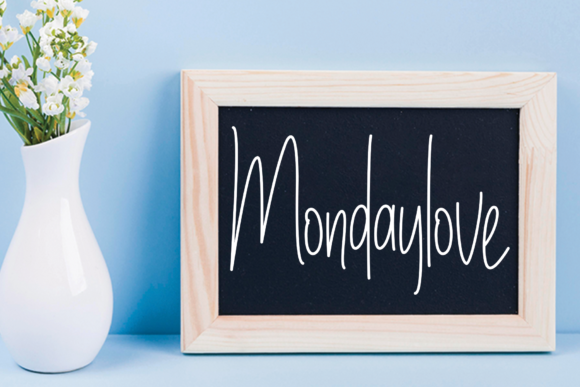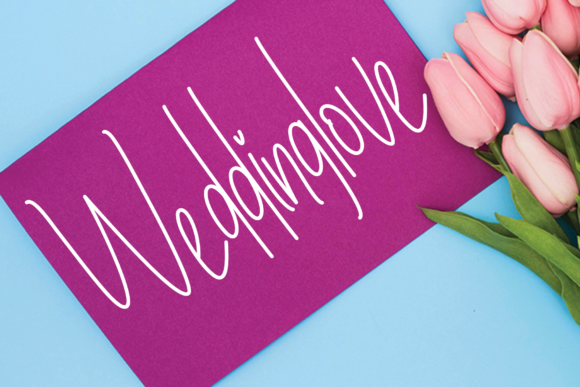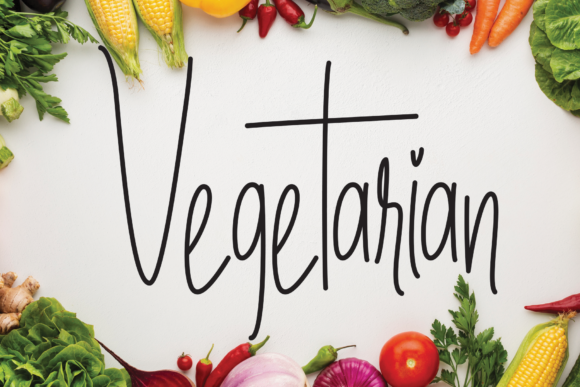
Creativenottes Font
About Creativenottes Font
Creativenottes is a thin, distinct and dainty handwritten font that features sweet and delicate swashes. This original look will appeal to a wide range of crafty ideas, from letterheads and titles, to stationery.